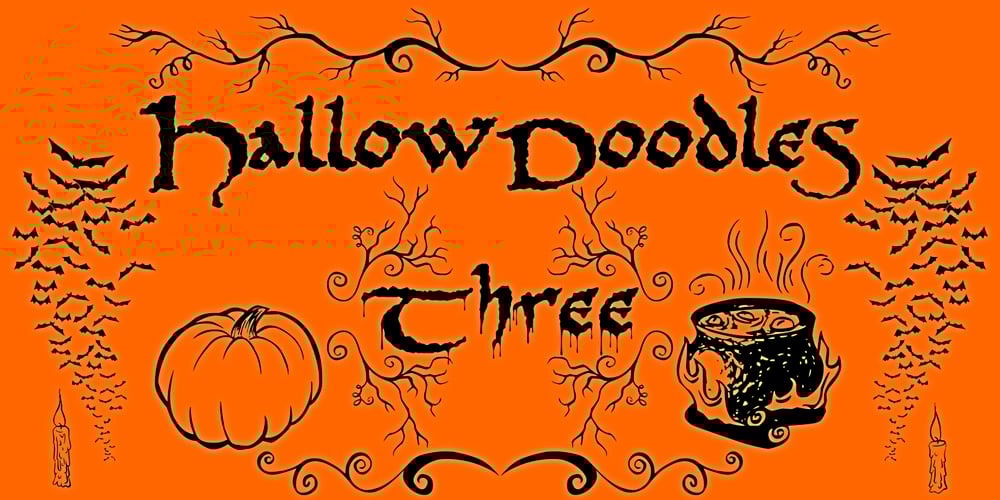
PR Hallow Doodles 03 Font Family was designed by Peter Rempel and published by PR Fonts. PR Hallow Doodles 03 contains 1 styles and family package options. This font is a collection of Borders and Illustrations on a Halloween theme. It includes spiders, owls, a bubbling cauldron, and a swarm of bats. Border designs occur in at least four rotations, to allow for symmetrical formal designs.